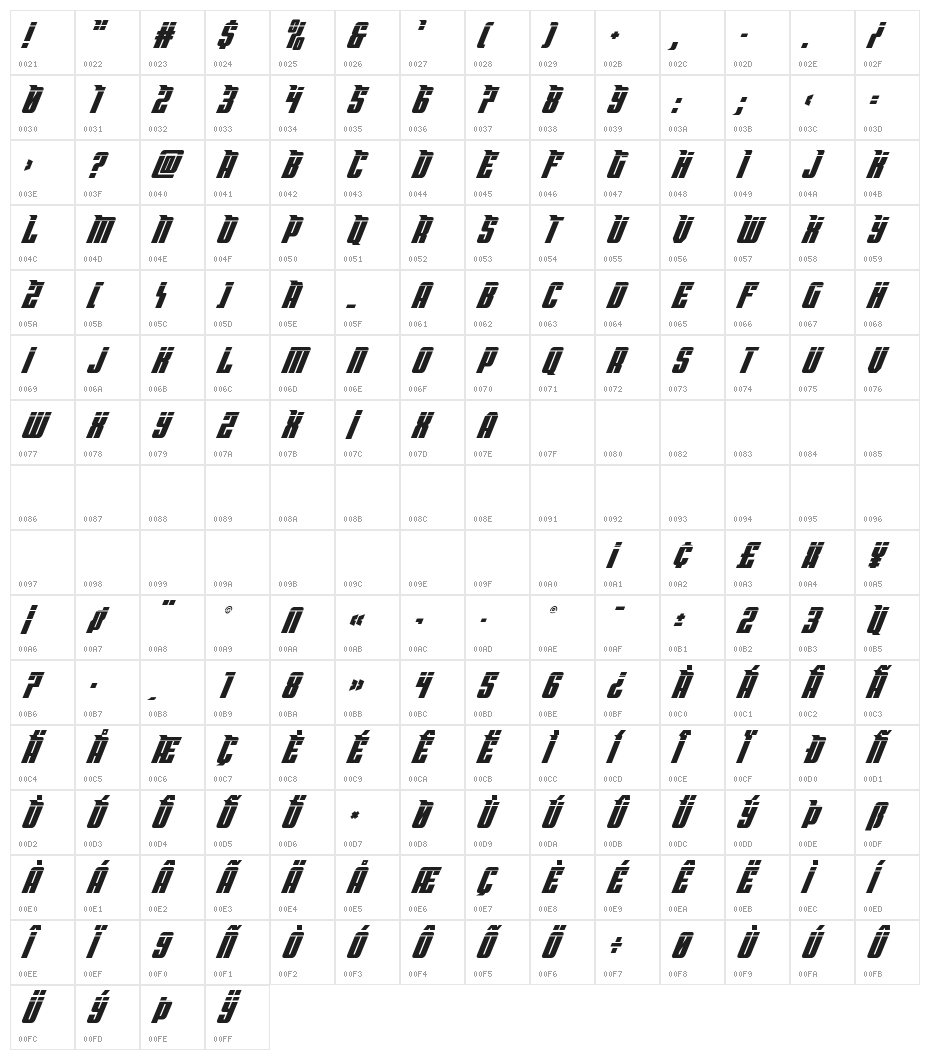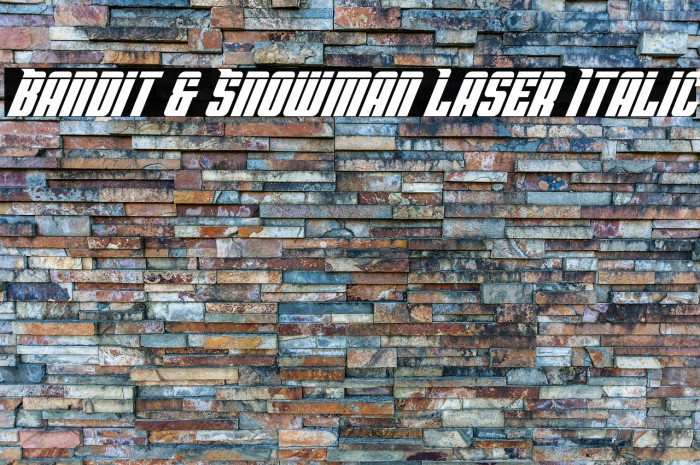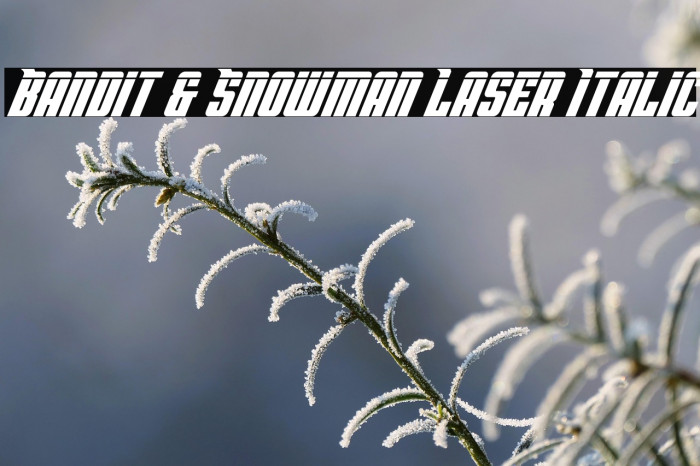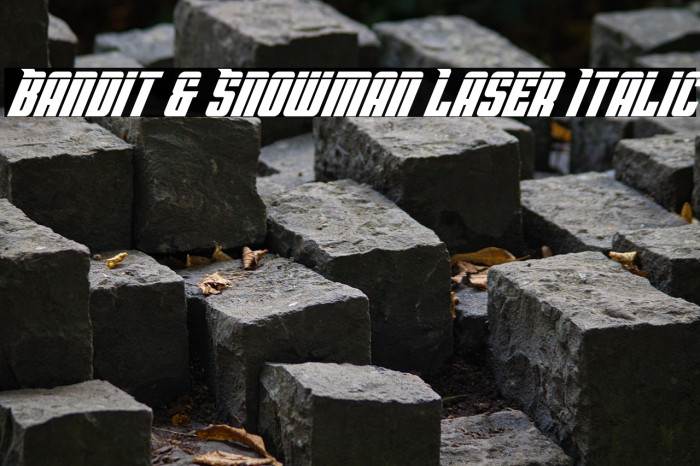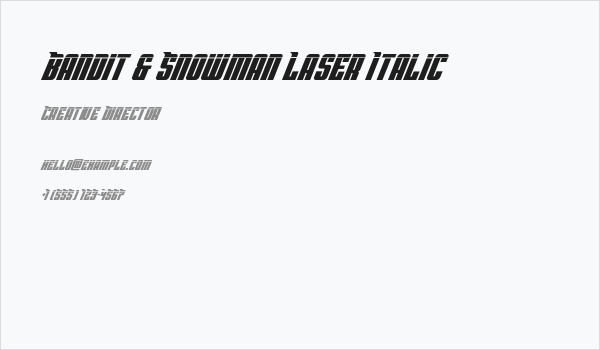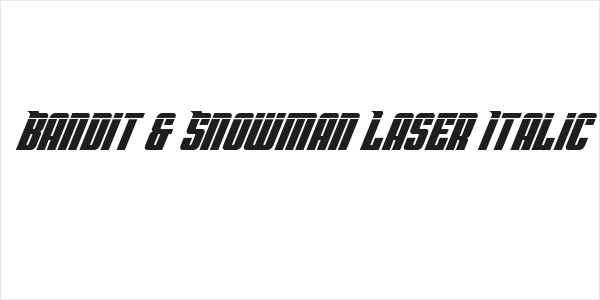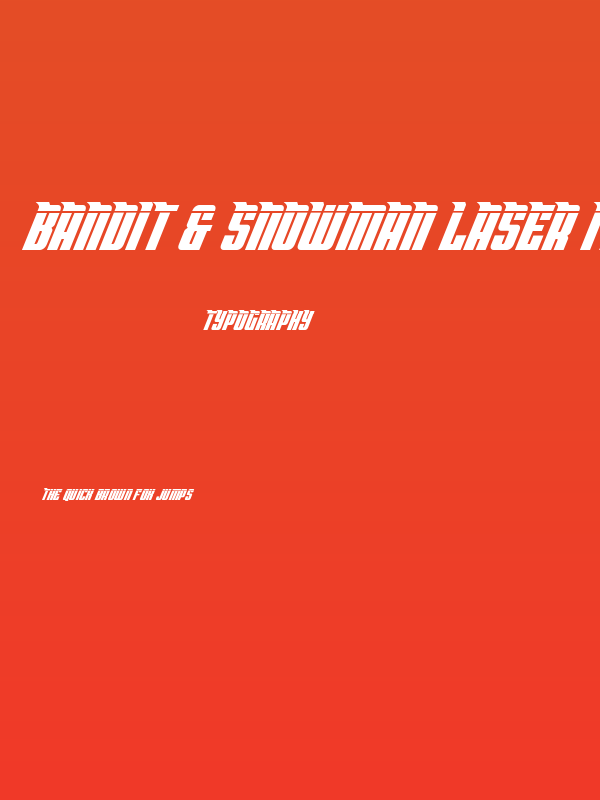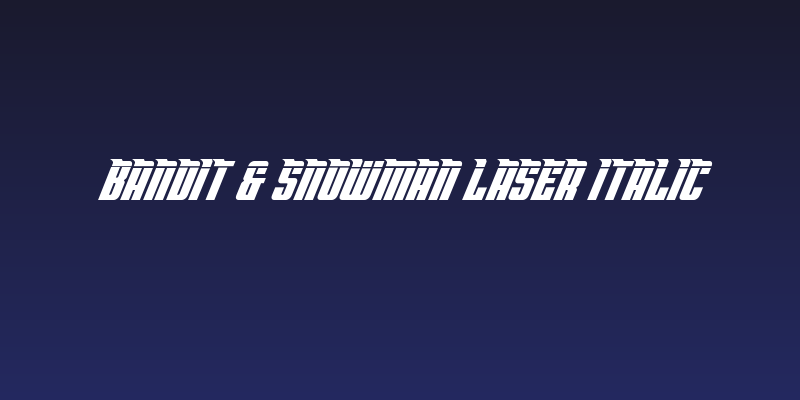
Bandit & Snowman Laser Italic Font
Bandit & Snowman Laser Italic Description
This font features a bold, italicized style with a futuristic and dynamic appearance. The characters are sharply angled, giving a sense of motion and speed. The uppercase and lowercase letters maintain a consistent slant, enhancing the italic effect. The numbers and special characters follow the same design principles, ensuring uniformity across all glyphs. The font's thick strokes and geometric shapes make it highly legible and impactful, suitable for attention-grabbing designs.
| Proposed Projects | Ideal for sports branding, video game titles, sci-fi movie posters, and dynamic logo designs. |